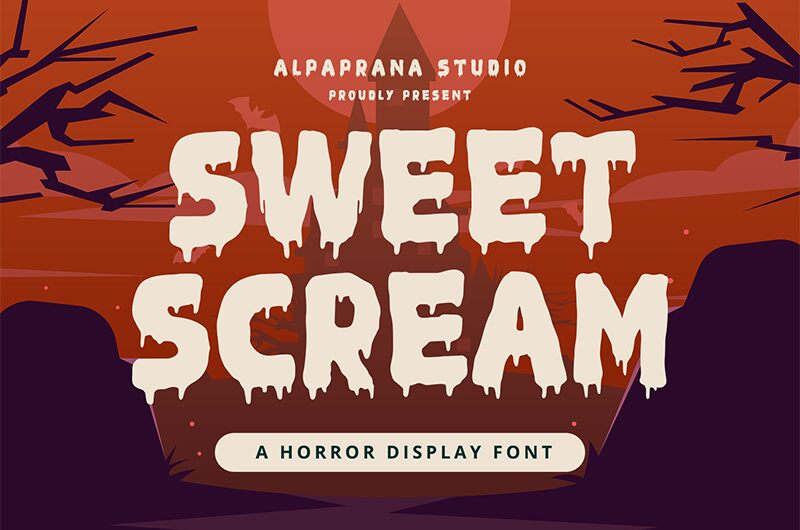
Sweet Scream, designed by Alpaprana Studio, is a spine-chilling holiday font that embraces the eerie atmosphere of Halloween. With its extra-bold weight and blood-dripping details, this font exudes a hauntingly beautiful aesthetic.
Perfect for creating eye-catching party invitations, wicked posters, or chilling social media posts, Sweet Scream will send shivers down your audience's spines. Its all-caps design adds an element of intensity to any project, making it ideal for horror movie titles or ghoulish merchandise.
Unleash the darkness within with Sweet Scream and captivate your audience this Halloween season.